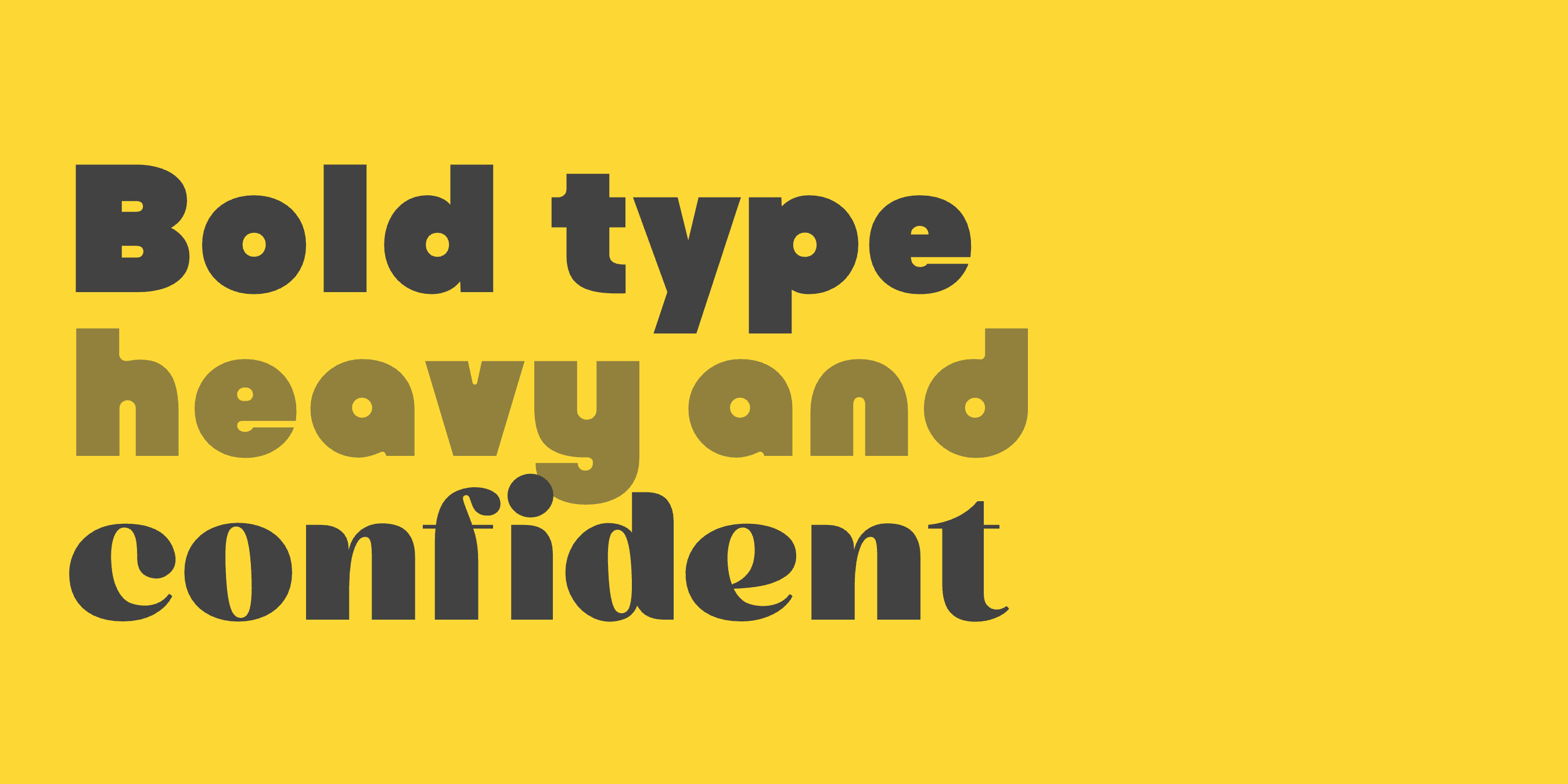
Modern Bold Fonts for Strong Brand Identities
Bold modern type is what designers reach for when a brand needs to be unmissable. Packaging hero panels, logo wordmarks, billboard headlines, Instagram first impressions. The right modern bold font does the heavy lifting before anyone reads a word of copy. These ten Mojomox fonts cover the range, from architectural sans to bubble blocks to high-contrast serifs.
Apex
Bold pointy sans-serif with sharp alternates. The triangular apexes give it edge, and the alternates push the sharpness further when you need it. A confident pick for sports, tech, and brands with a strong voice.
Test Apex →Plox
Cool bubble block font that reads bold without feeling heavy. Modular shapes, playful character, works at large display sizes for packaging, game branding, and gen-Z identities.
Test Plox →Bauhaus Bau
Rounded bold sans-serif with modern retro proportions. Reads confident at any size. Often picked for lifestyle brands and consumer product lines that want warmth and weight together.
Test Bau →Nano
Bold sans-serif for science and tech branding. The shapes read precise and architectural. REM Beauty uses a similar style for its headlines. Pairs well with subtler body fonts in product UI and tech-brand systems.
Test Nano →Bauhaus Geo
Bold geometric sans stripped to essentials. Clean alternates, weights that pair cleanly, and a calm authority that holds up across packaging, signage, and digital.
Test Geo →Byrl
Wide bold sans-serif for a cool brand look. The extended proportions give it real presence at headline size while the geometric foundation keeps it modern.
Test Byrl →Ark Sans
Modern architectural sans with cut diagonals (the diagonal strokes are sliced flat at the ends). Subtle, structural, design-forward. Works for engineering-led and architecture-led brands.
Test Ark Sans →Vole
Geometric sans-serif with fluid counters, especially confident in its bolder weights. Reads modern and friendly at once.
Test Vole →Bool
Playful sans-serif, bold with fun alternates. The bold weight pushes Bool from playful to confident. Good for kids brands, food, and lifestyle work that needs warmth and weight.
Test Bool →Cesty
Friendly rounded display font that goes bold gracefully. The proportions feel warm, the corners are soft, and the alternates give designers room to play with the wordmark.
Test Cesty →How to choose between them
If the brand voice is confident-and-architectural, lean toward Apex, Ark Sans, or Bauhaus Geo. If it's warm-and-confident, lean toward Bauhaus Bau, Cesty, or Bool. If it's playful-and-loud, lean toward Plox or Bool.